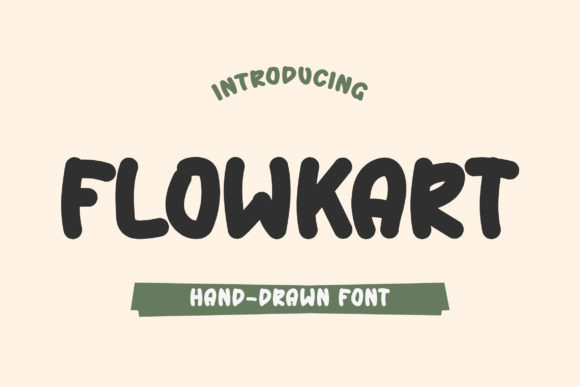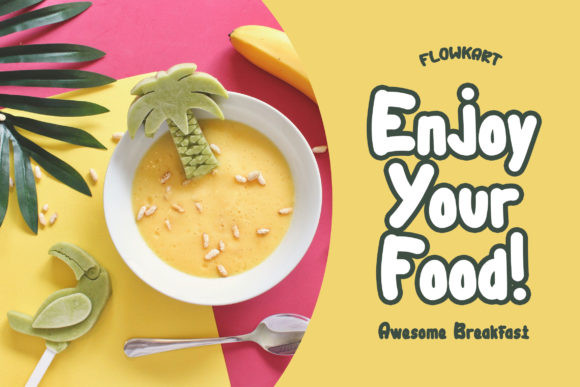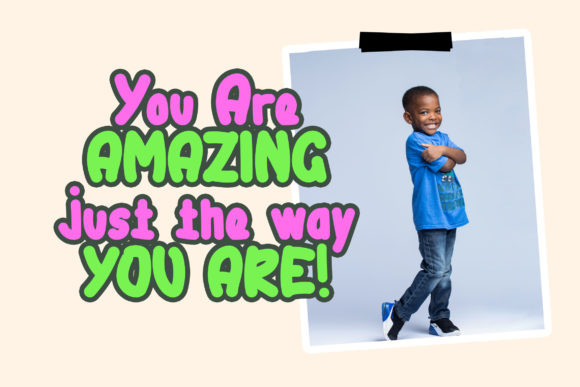
Flowkart Font
Flowkart is a hand-drawn, chunky lettered display font. It look great on apparel projects, signature, album covers, logos, branding, magazine, social media and so much more. Fall in love with its incredibly versatile style and use it to create beautiful designs!